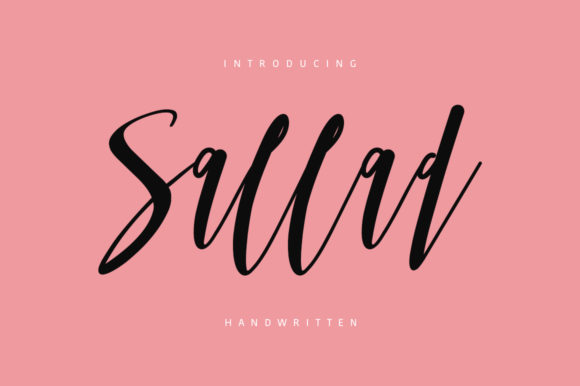
Introducing Sallad Font: The Quirky Handwritten Masterpiece That Will Transform Your Creative Vision!
Sallad Font, a brainchild of Maulana Creative, is not just a font; it's an artistic expression waiting to be unleashed. This captivating script font exudes a unique personality, making it the perfect choice for those seeking to make a bold statement. With its playful and quirky nature, Sallad Font adds a touch of whimsy to any project, leaving a lasting impression on your audience.
Unleash Your Creativity with Sallad: The Perfect Font for Signature Designs
If you're looking to create stunning signature designs that reflect your individuality, look no further than Sallad Font. Its free-flowing strokes and charming imperfections give your signatures an authentic and personal touch. Whether it's for branding, invitations, or personal notes, Sallad Font will add a touch of elegance and artistry that will leave a lasting impression.
Add a Touch of Charm to Your Stationery with Sallad Font
Elevate your stationery game with the delightful Sallad Font. Its playful style adds a touch of whimsy to letters, cards, and other paper goods. Imagine your words dancing across the page, carrying a sense of joy and excitement. Sallad Font is the perfect choice for those who want their stationery to stand out and reflect their unique personality.
Create Unforgettable Logos with Sallad: The Font That Makes a Statement
In a crowded marketplace, your logo is your chance to make a lasting impression. With Sallad Font, you can create logos that are both eye-catching and memorable. Its quirky charm and distinct style will ensure that your brand stands out from the competition. Let Sallad Font be the foundation of your brand's visual identity, attracting customers and leaving a lasting impact.
Embrace the Beauty of Quotes, Magazine Covers, and Website Headers with Sallad Font
Sallad Font's versatility shines when it comes to quotes, magazine covers, and website headers. Its ability to convey emotions and create a unique atmosphere makes it the perfect choice for adding depth and personality to your content. Whether you're sharing an inspiring quote, showcasing your latest magazine issue, or designing an engaging website header, Sallad Font will elevate your message and captivate your audience.